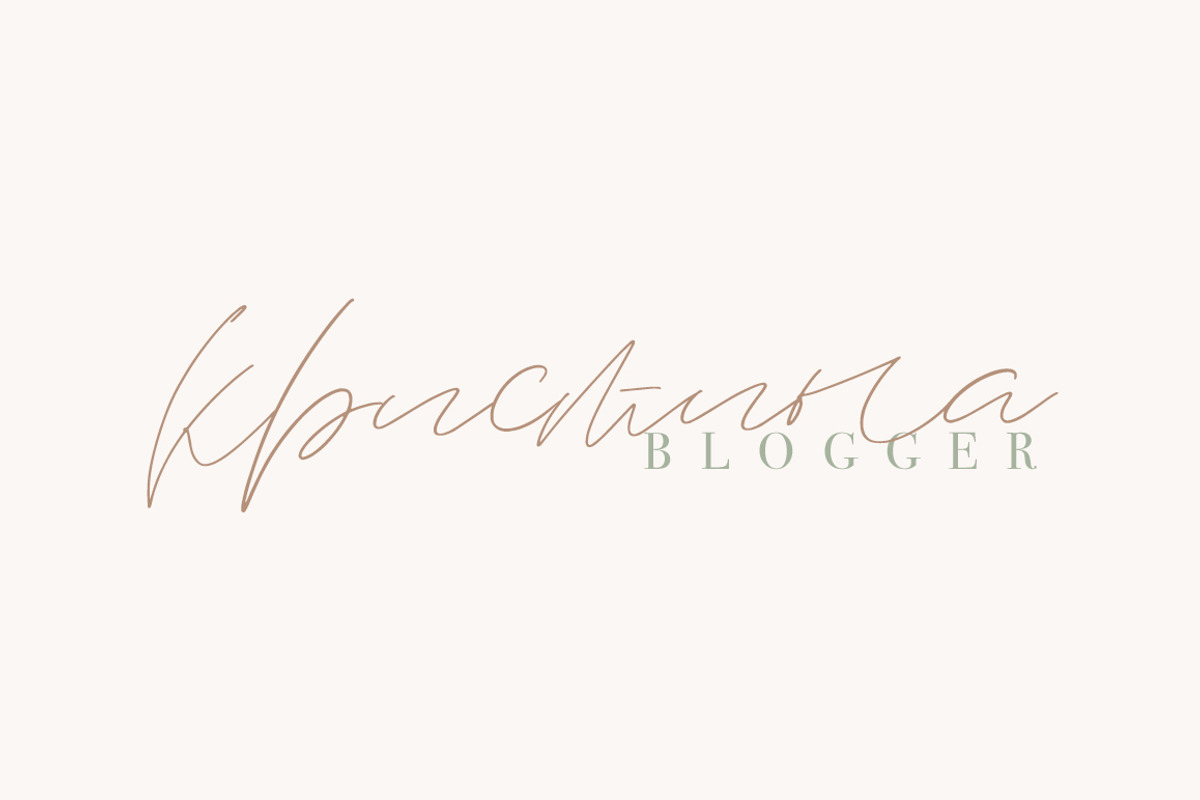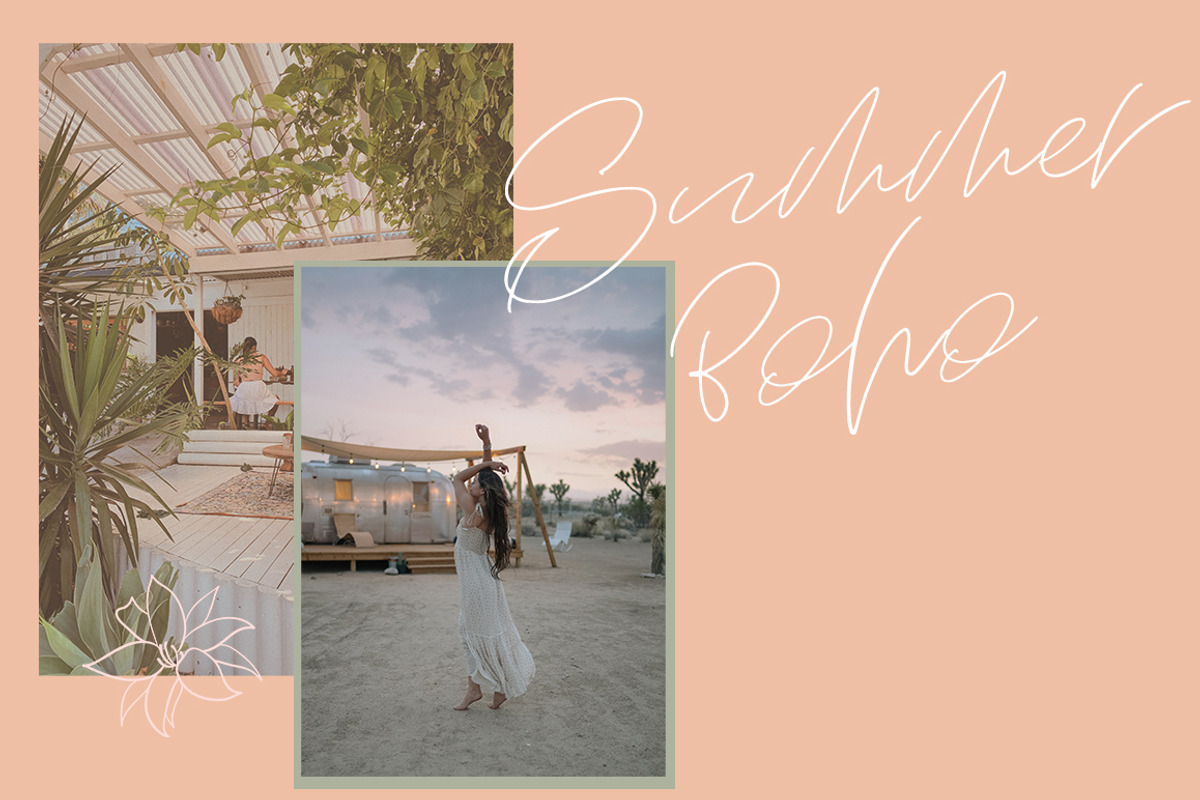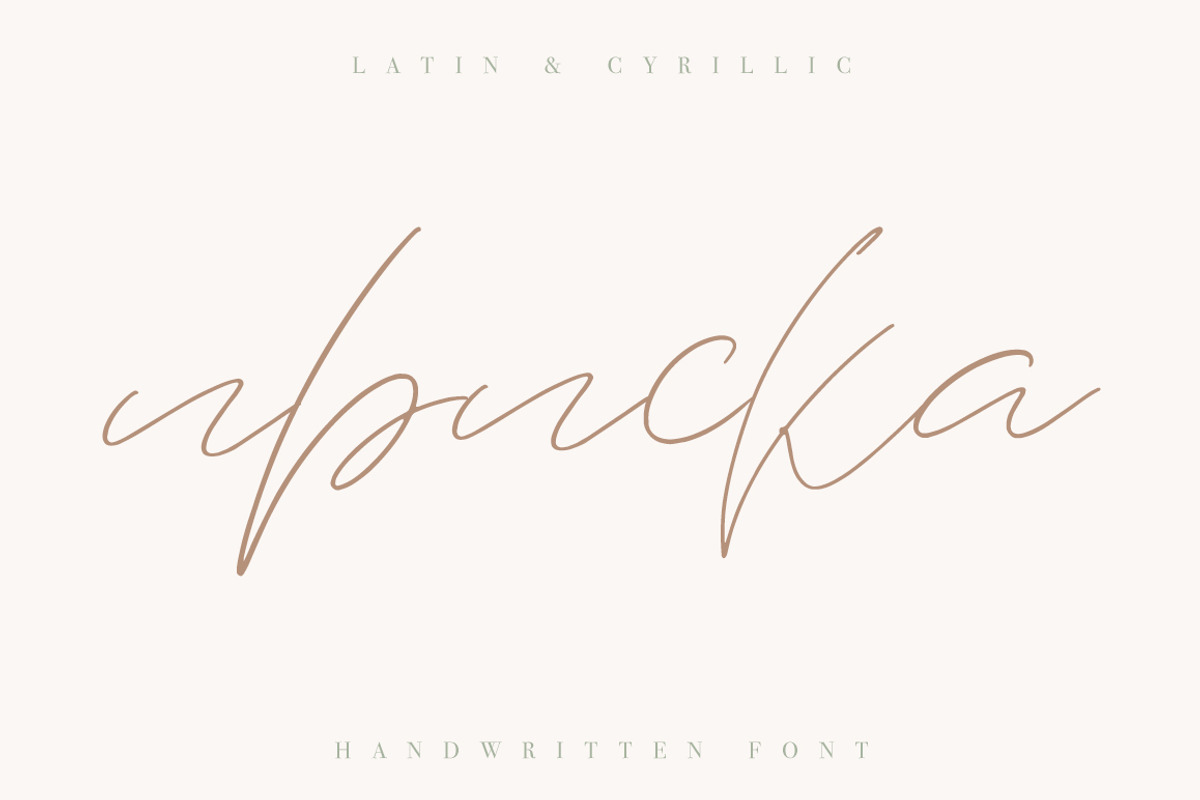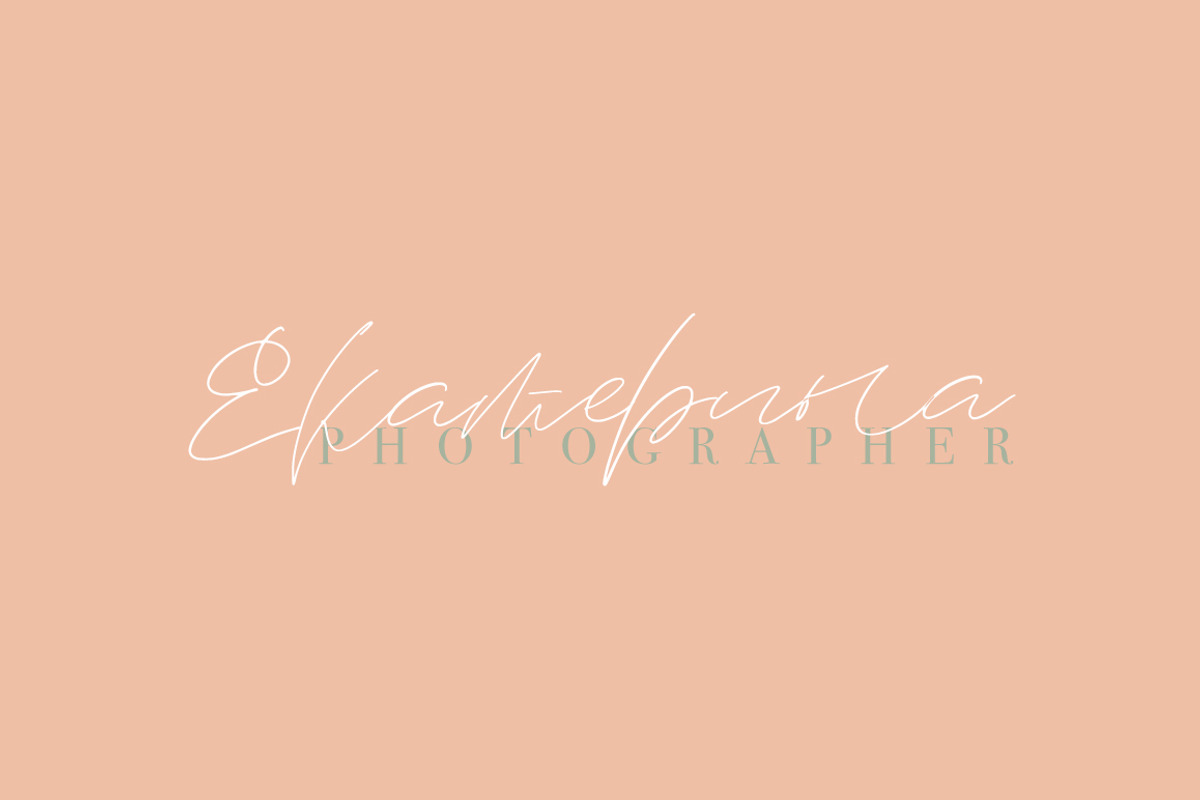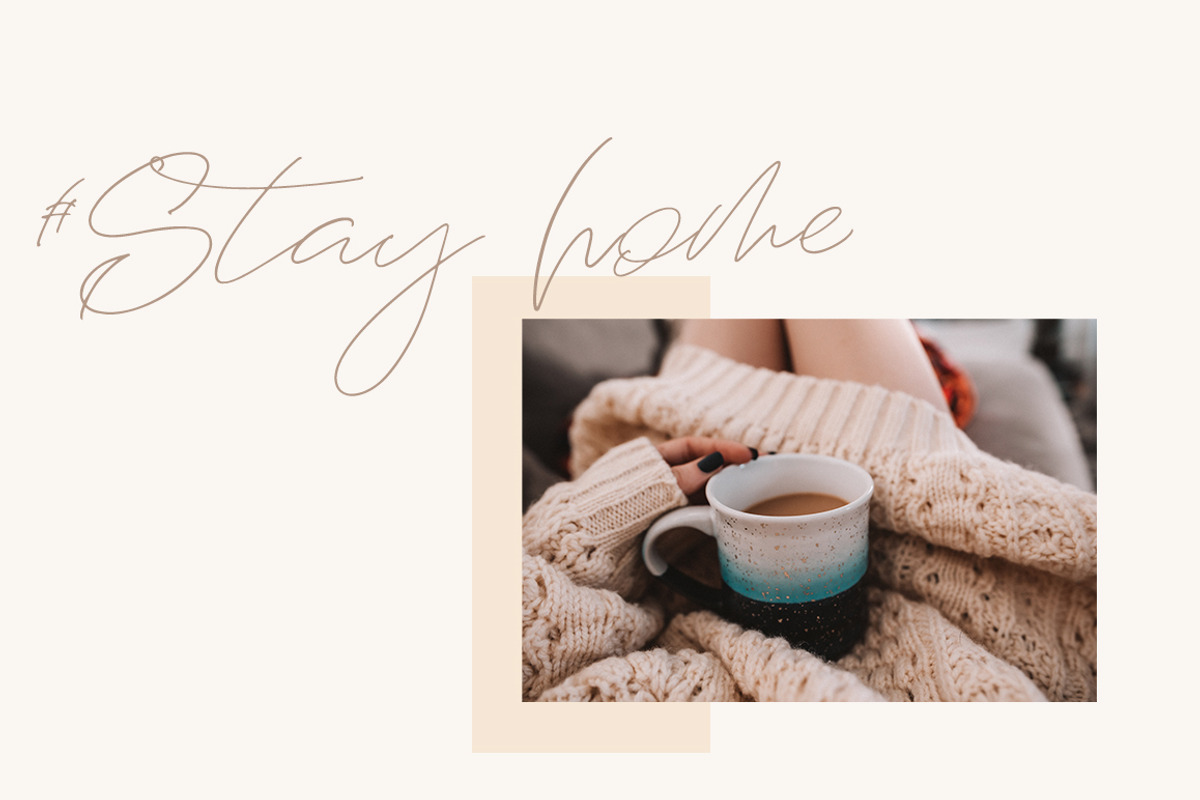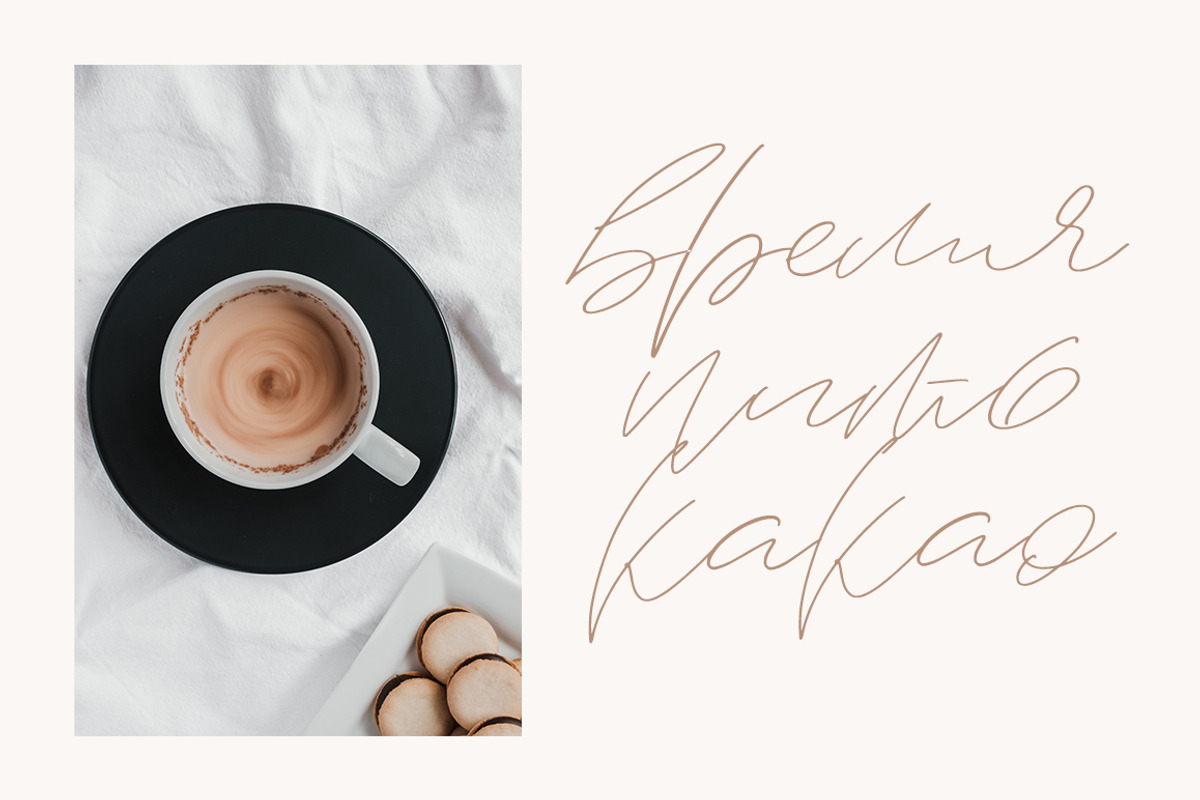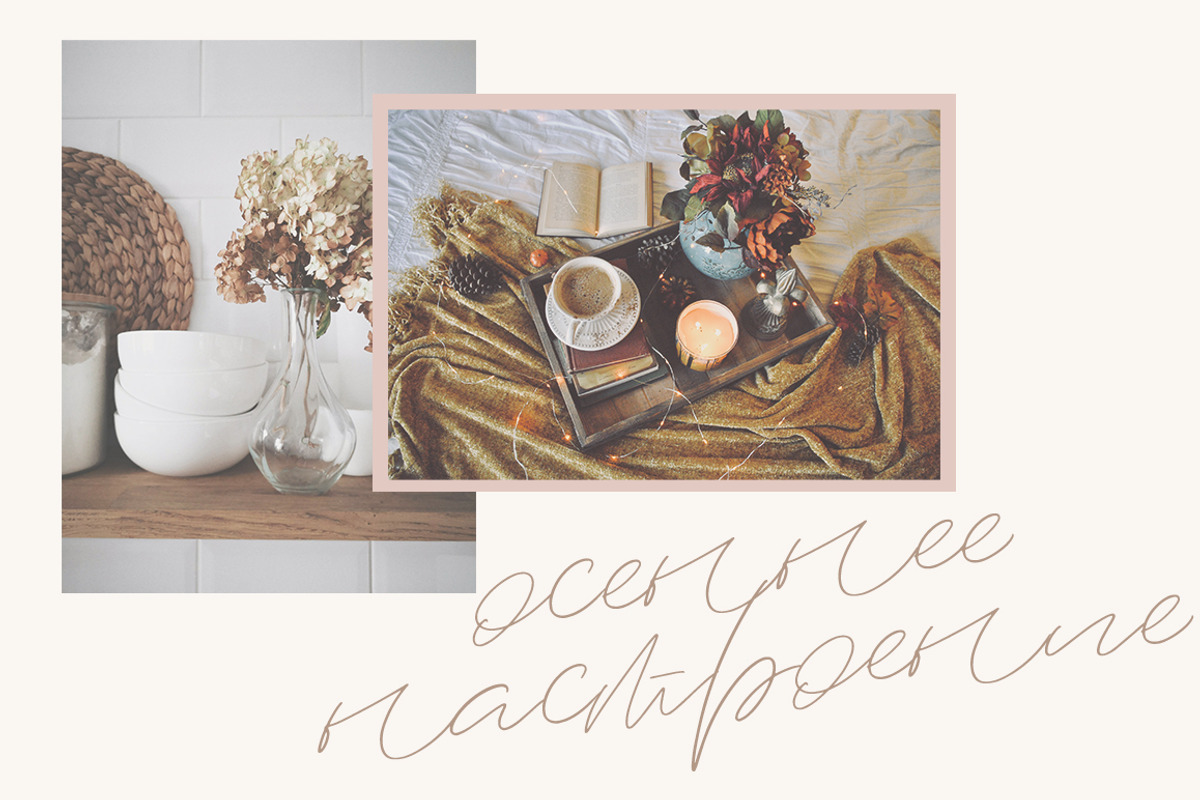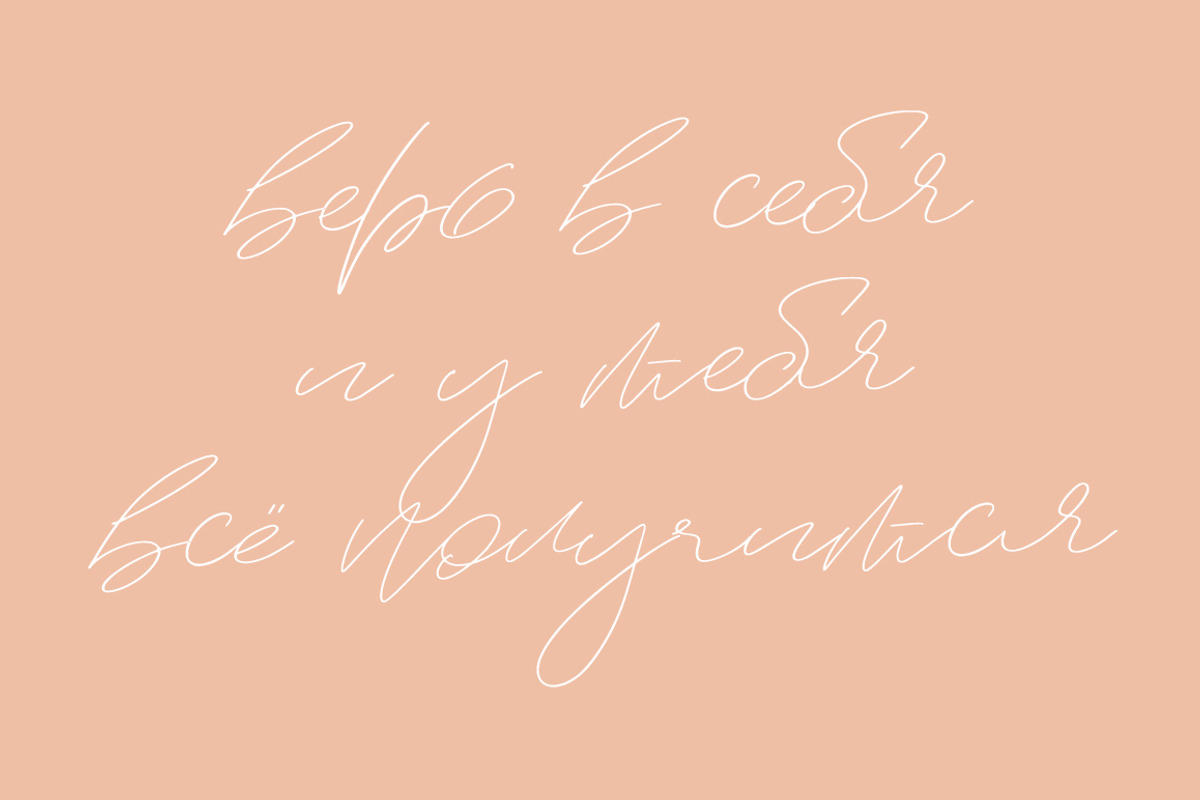
Iriska Cyrillic & Latin Font
IRISKA / ИРИСКА
This handwritten script has been attentively written, with gentle curves to produce a font thats completely distinctive and original. Perfect for adding a elegant and unique touch to your lettering projects and branding Also with their help, you can create a Wedding lettering or beautiful frame for your home. Or just use for your small business, book covers, stationery, marketing, magazines and more.
CYRILLIC CHARACTERS
Standard glyphs, numbers, punctuation.